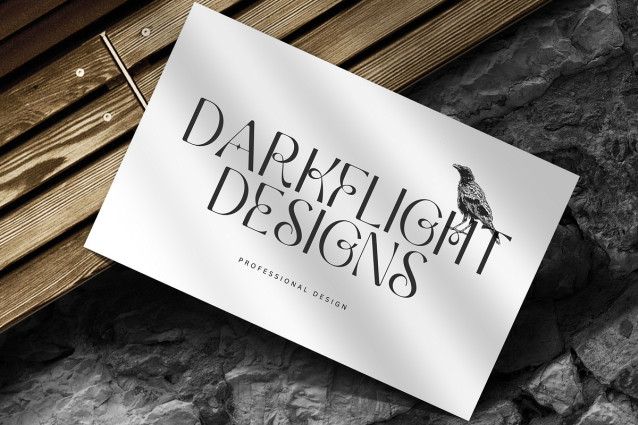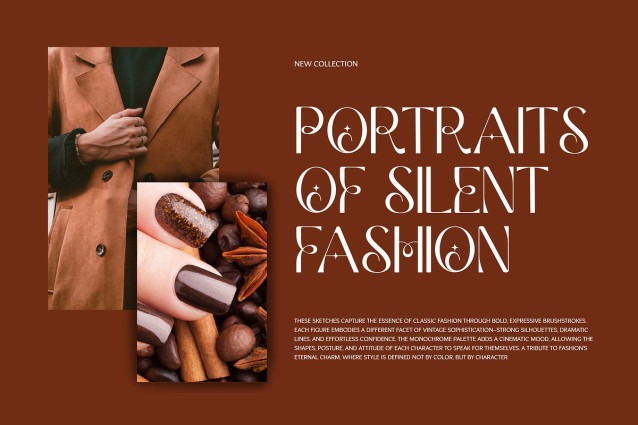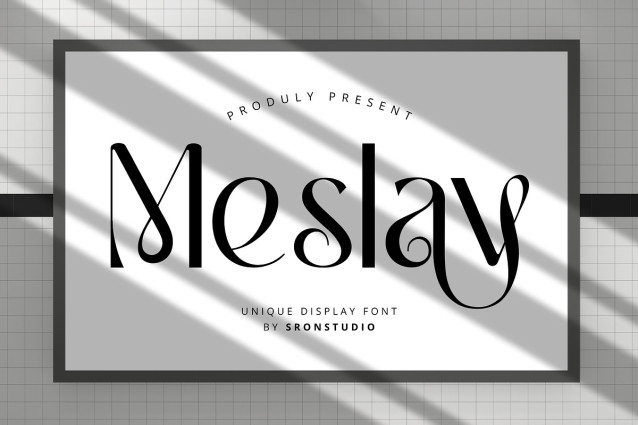
Meslay Font
Meslay Font is a unique display font designed to stand out with bold personality and distinctive character. Featuring creative letterforms and eye-catching shapes, this font is perfect for branding, posters, headlines, logos, and experimental designs. Meslay brings originality and flair to your typography, making every word feel expressive and memorable.